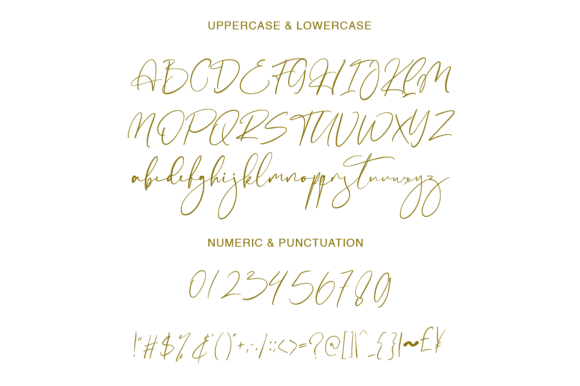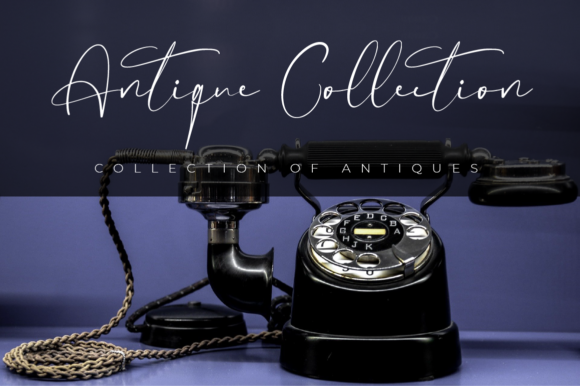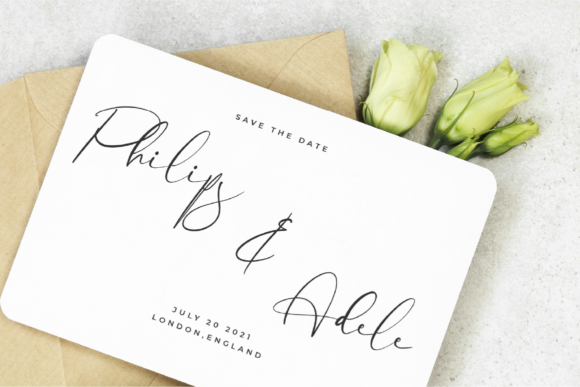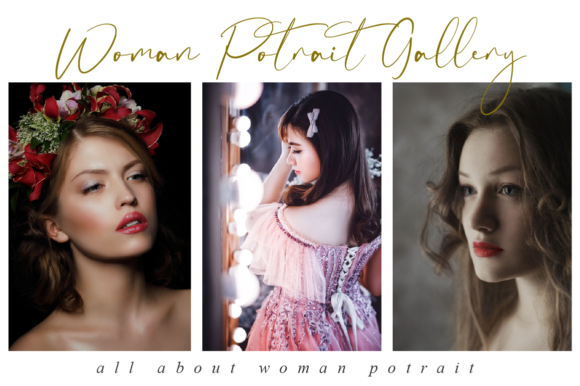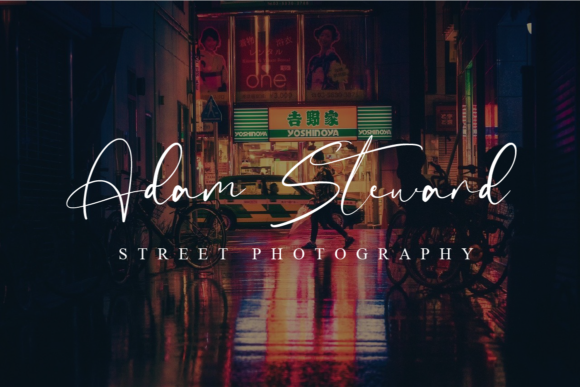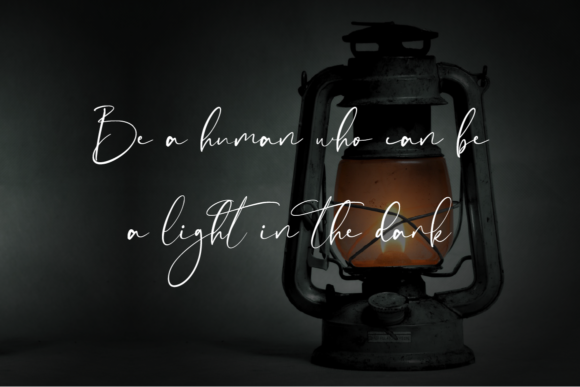
The Perfect Script Font for Your Next Creative Project
As designers, we’ve all been there – staring at a blank page, trying to find the perfect font to bring our vision to life. It’s that moment when you need something special, something that captures the essence of your message and leaves a lasting impression. For me, it’s the Halestond Font that always comes to mind.
This stunning script font is more than just a pretty face – it’s a versatile tool that can elevate any design project. From wedding invitations to business cards, Halestond Font adds a touch of elegance and sophistication that’s hard to replicate. Its delicate lines, gorgeous glyphs, and stunning alternates make it a valuable asset for any designer looking to add a handwritten touch to their work.
Halestond Font Key Features
- Unique Characteristics: Halestond Font features a unique blend of modern and vintage elements, with intricate details and ornate flourishes that set it apart from other fonts.
- Script and Language Support: The font includes support for multiple languages, including Latin, Cyrillic, and Greek scripts, making it suitable for a wide range of design applications.
- Kerning and Ligatures: Halestond Font includes advanced kerning and ligature pairs, ensuring that text sets are visually appealing and professional-looking.
- Scalability: The font is highly scalable, allowing it to be used effectively in both small and large font sizes, from body text to headlines and titles.
Halestond Font Review
I’ve been working with the Halestond Font for a while now, and I have to say it’s a solid addition to any designer’s toolkit. Here’s what I like about it:
- ✨ Unique aesthetic: The Halestond Font has a distinct, hand-drawn feel that sets it apart from more generic sans-serif fonts.
- ✨ Wide range of applications: I’ve used it for everything from logos to body text, and it always seems to fit the bill.
- ✨ High-quality rendering: The font renders beautifully at various sizes and resolutions, making it a great choice for digital projects.
Of course, no font is perfect, and the Halestond Font has its limitations:
- ⚠️ Limited character set: The font only includes a standard set of Latin characters, which might be a problem for projects that require non-English text.
- ⚠️ Not ideal for small text: While the font looks great at larger sizes, it can be difficult to read at smaller sizes due to its unique aesthetic.
Overall, I think the Halestond Font is a great choice for designers who want to add some visual interest to their projects. Just be aware of its limitations and use it accordingly.
The Halestond Font is a modern sans-serif font that is ideal for:
- Corporate branding and marketing materials
- Digital product design and user interface
- Editorial and publishing content
For optimal results, use the Halestond Font in combination with a clear and simple design aesthetic.